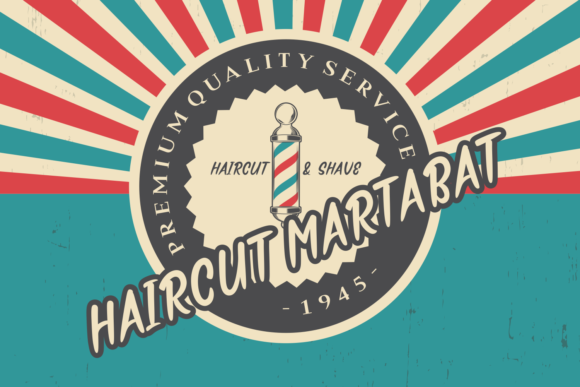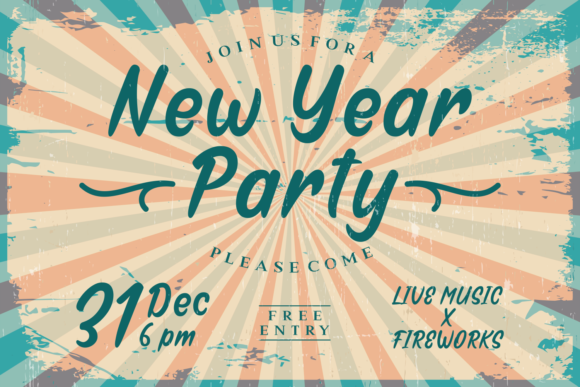
Mega Jaya Font
About Mega Jaya Font
The Mega Jaya is an unique script font. It has a playful feel which can be used to add a fun touch to your designs.
The Mega Jaya has a great readability and can be used for all sorts of designs!